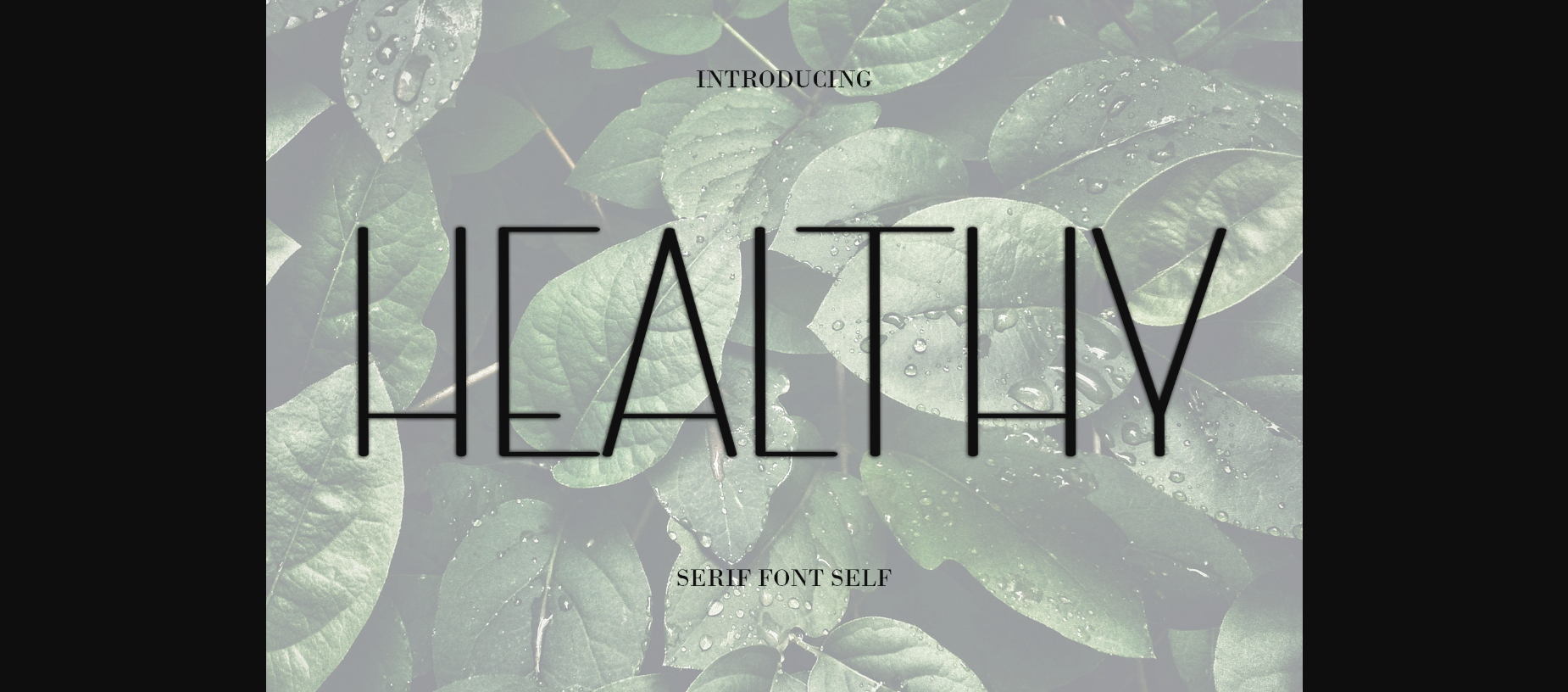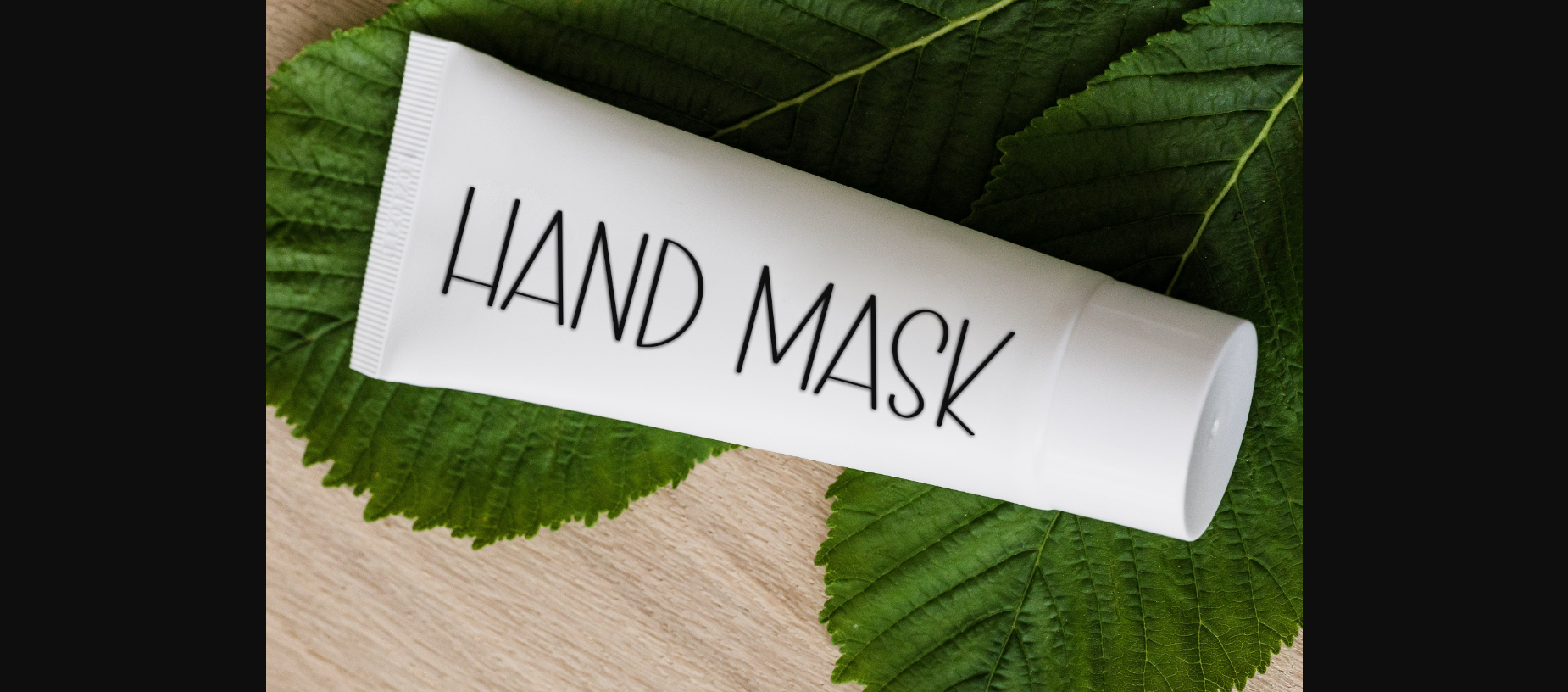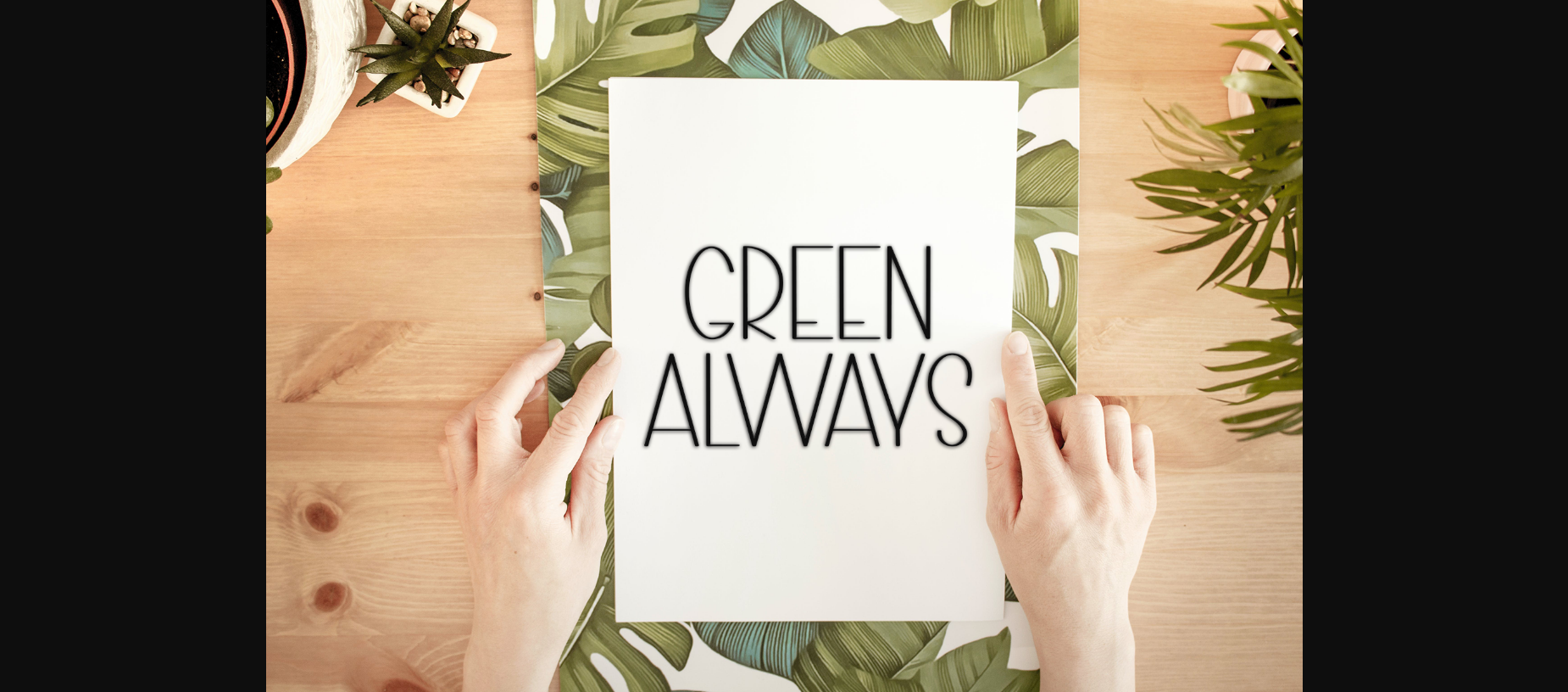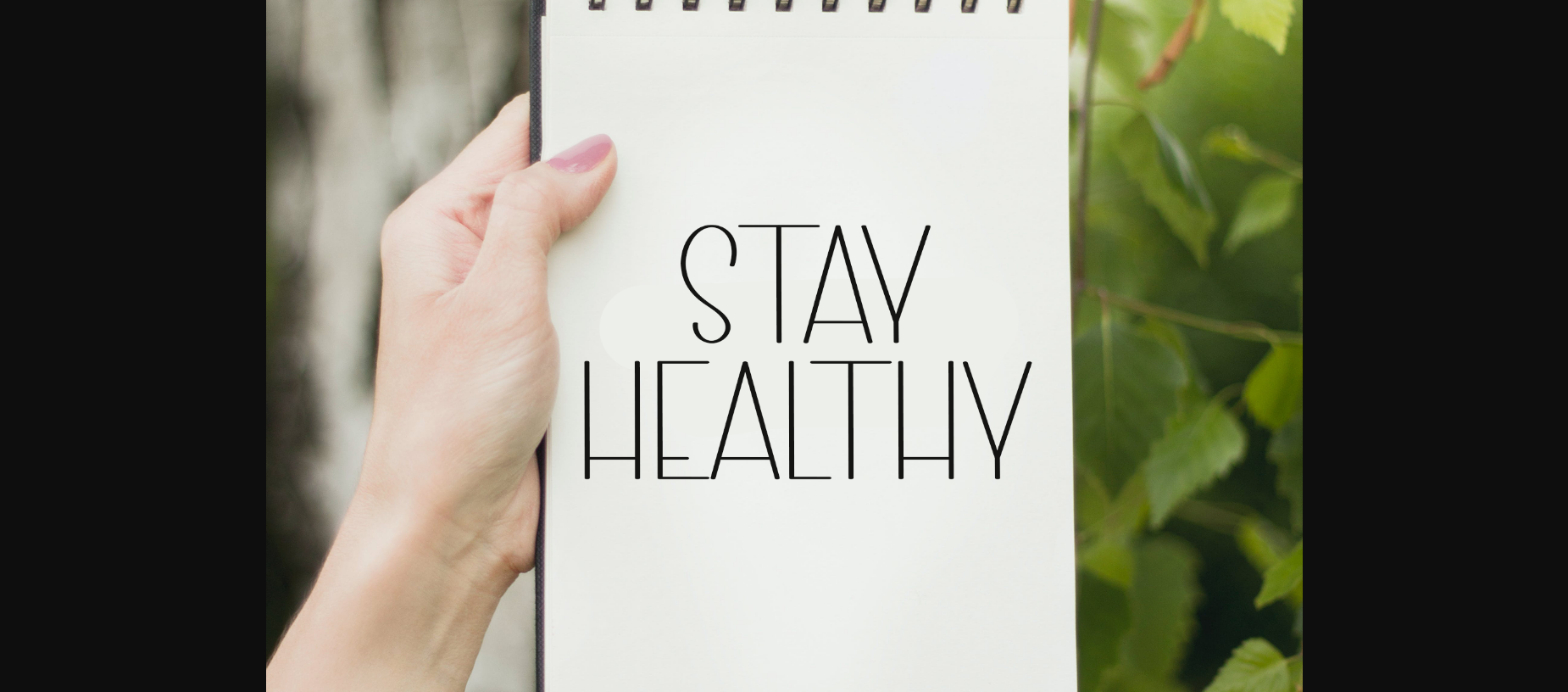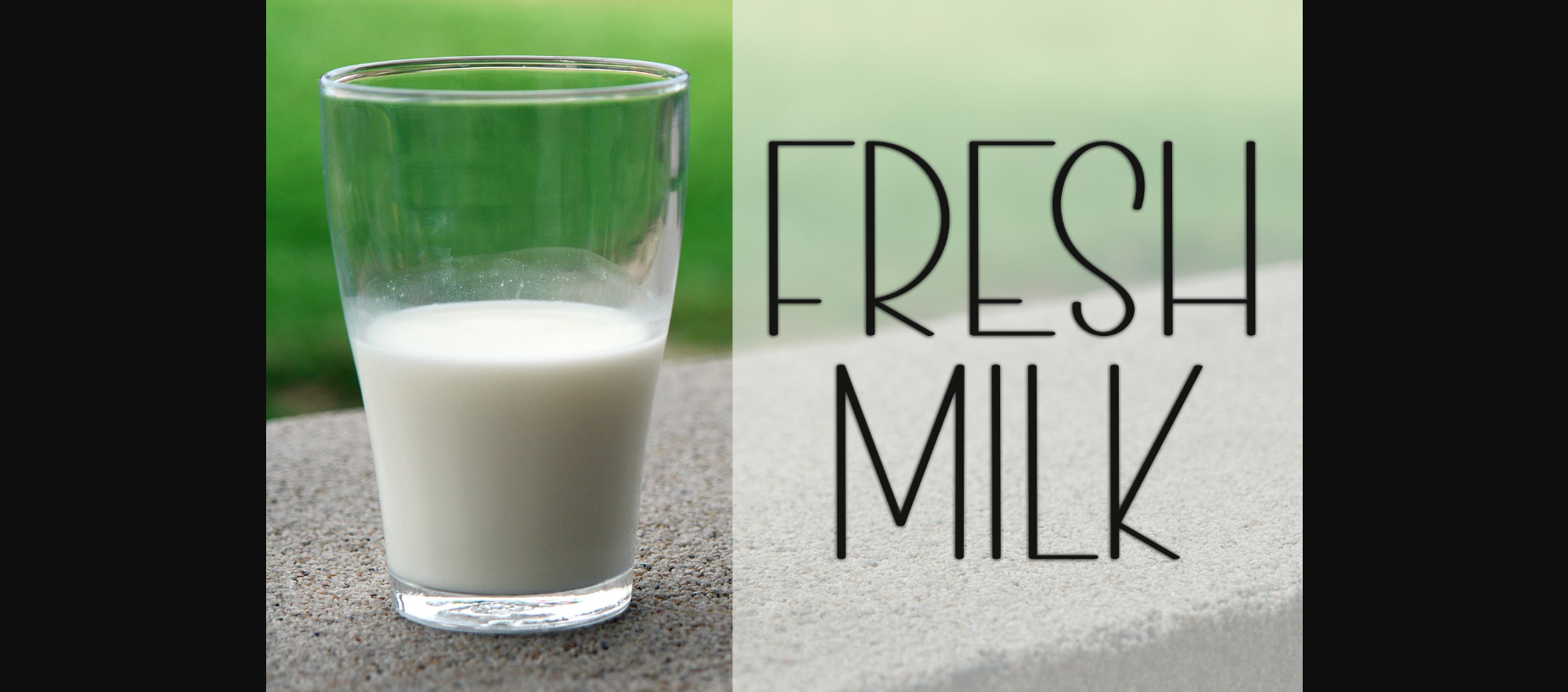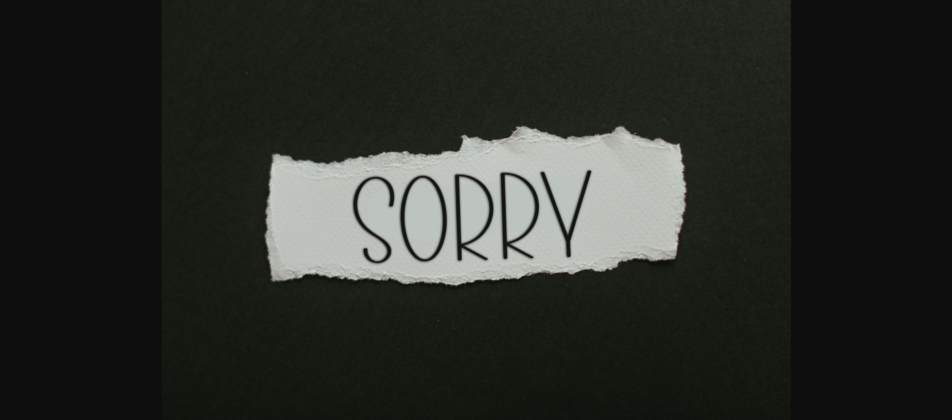
Healthy Font
About Healthy Font
Healthy is a sweet and friendly sans-serif font. Its natural and unique style makes it incredibly fitting to a large pool of designs. The only limit is your imagination.